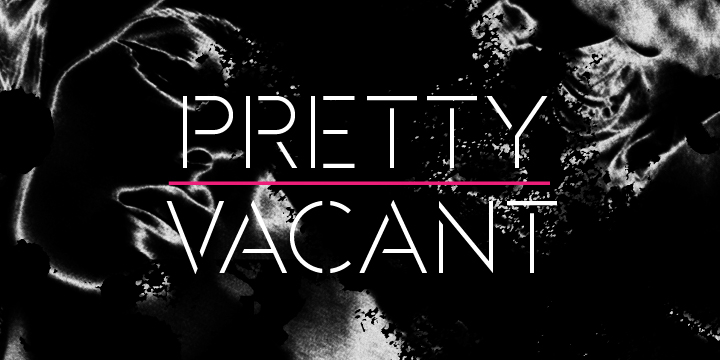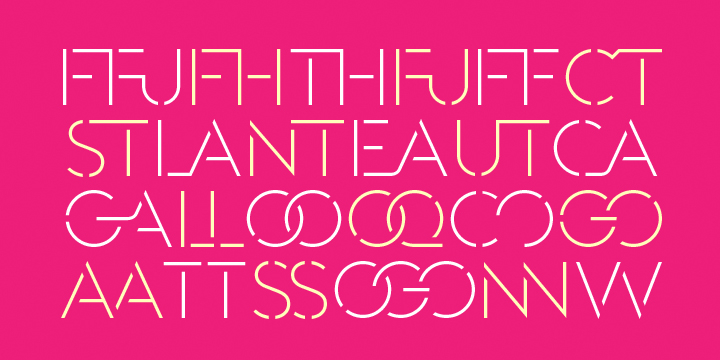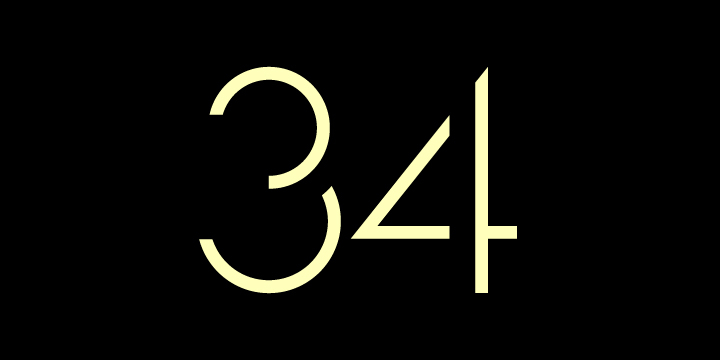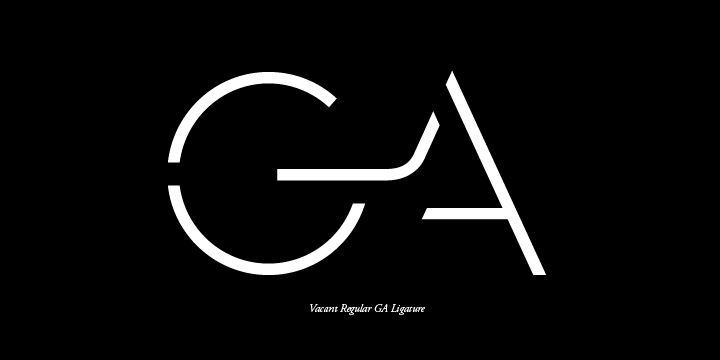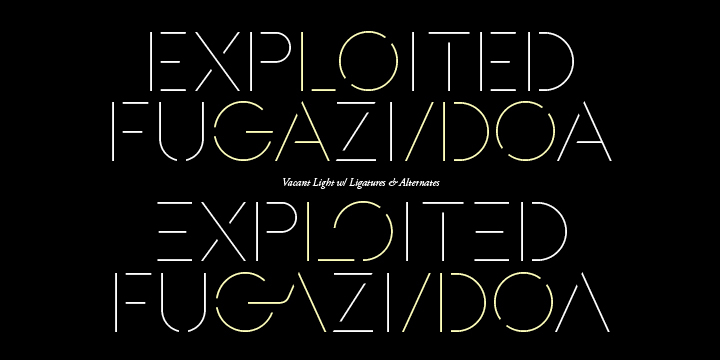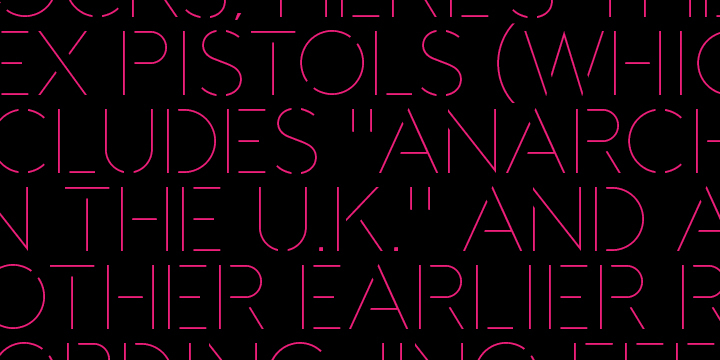
Vacant is a stencil font family. This typeface has two styles and was published by AE Type Inc.
Vacant is a precisely drawn, contemporary stencil face built with attention towards retaining pure underlying geometric forms and visual balance between letterforms.
Stylistically, Vacant exudes a strong sense of clarity and sophistication which contrasts the unrefined nature of stencil typefaces.